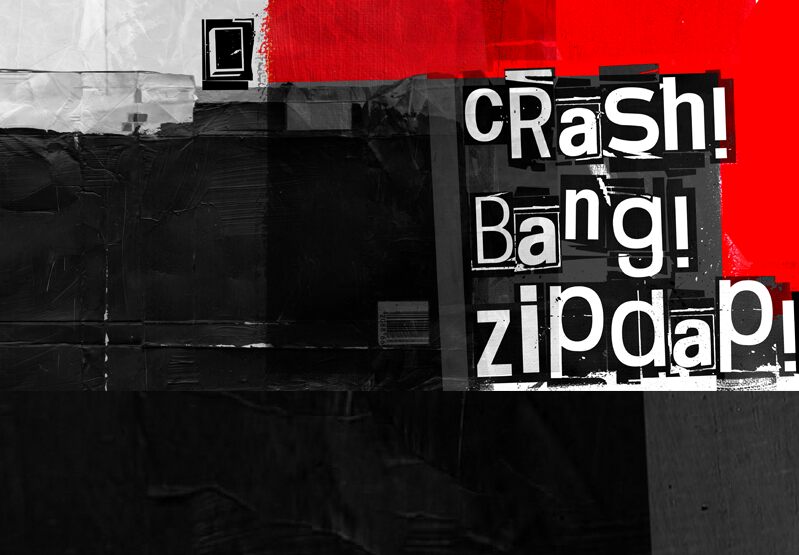
Crash! Bang! Zipdap!, designed by junkohanhero, is a captivating display font that exudes a distinctive distorted style. With its semi-light weight, this font is perfect for projects seeking an edgy and unique appeal.
It adds a touch of excitement to album covers, movie posters, and music festival branding. Its playful yet unconventional design makes it suitable for children's book titles or comic book covers, capturing the attention of young readers.
Additionally, Crash! Bang! Zipdap! can be used in logo designs for tech startups or gaming companies that want to convey a sense of energy and innovation.